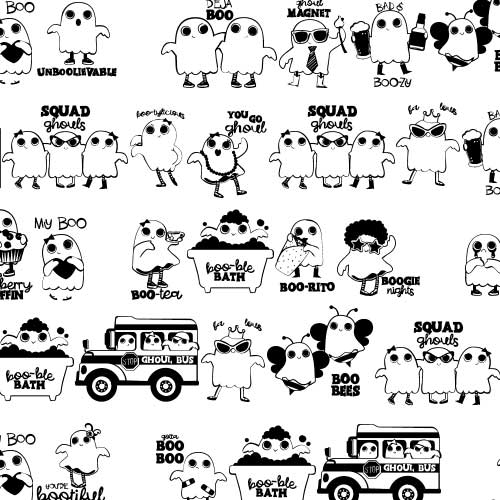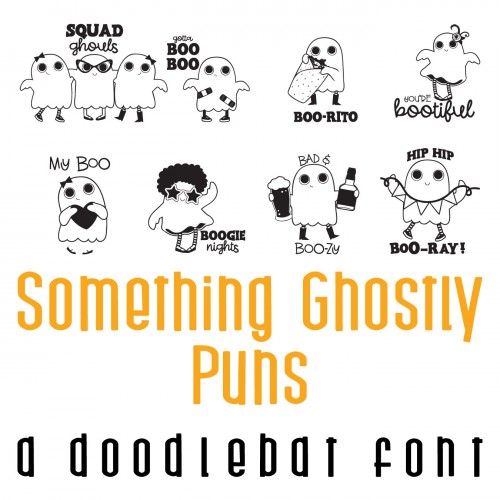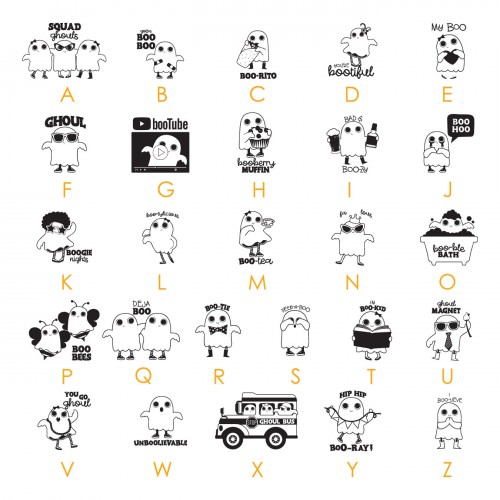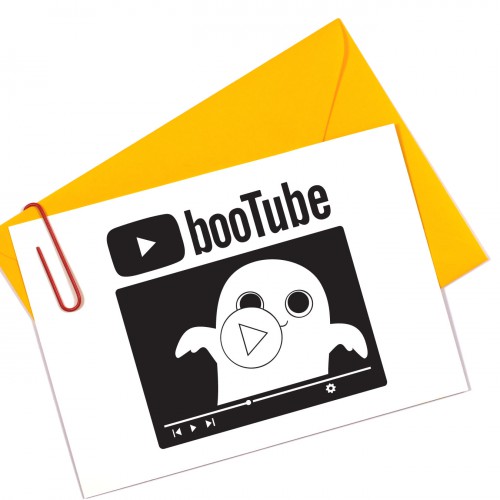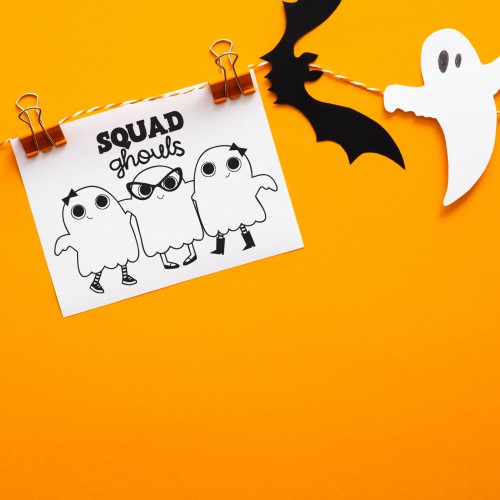
DB - Something Ghostly - Puns - DB
This adorable doodlebat features 26 ghost puns. Perfect for Halloween, use this doodlebat to create fun decor, gifts, cards, scrap book pages, planner stickers, parties and more!